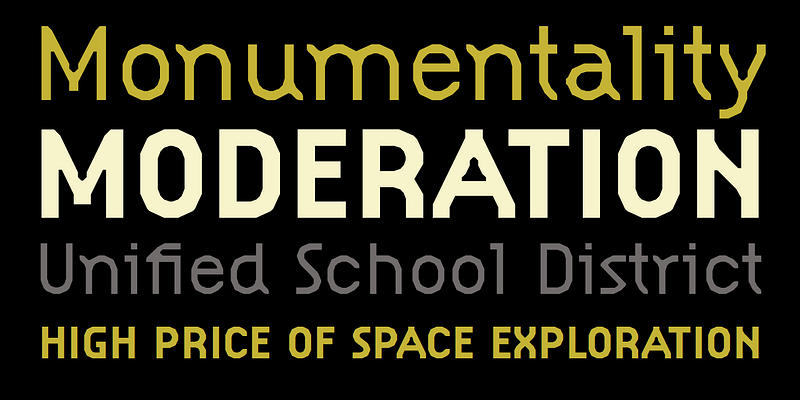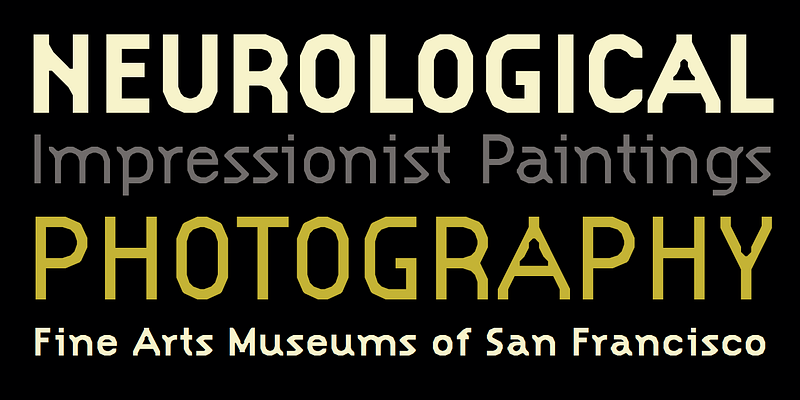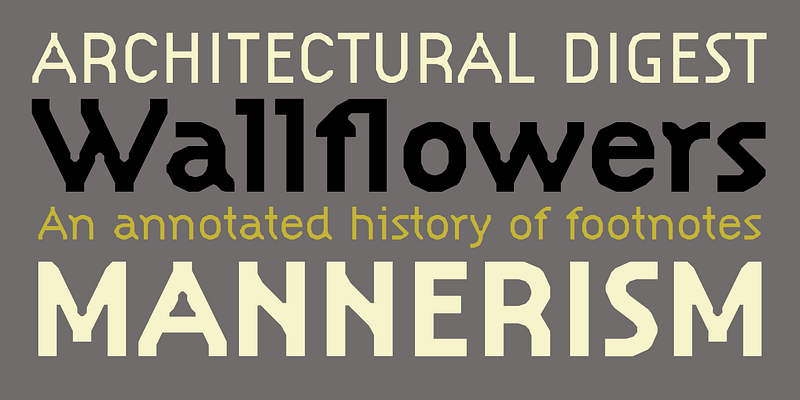
Citizen is a quirky two-weight font family for use in short texts and headlines. The design resulted from Licko’s experimentation with emerging technologies of the late 80s. With the introduction of laser printers, a “smooth” printing option was provided as a shortcut to increasing the resolution of bitmaps from screen to printer. This option processed 72 dpi bitmaps into 300 dpi bitmaps for laser printers; seemingly polishing stair step pixels into smooth diagonals. This was the inspiration for the design of Citizen. Licko used straight line segments to approximate the features of smooth printing, applied to her earlier Lo-Res Twelve bitmap design. Later, this progression would develop into the Triplex Sans family.